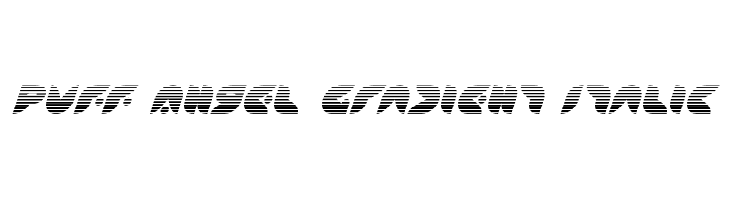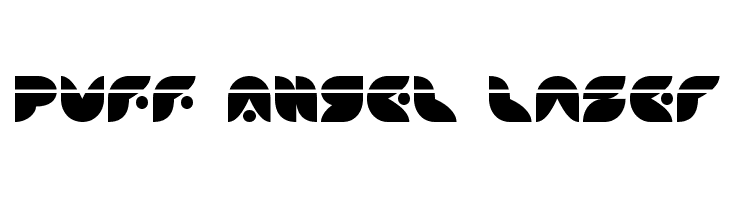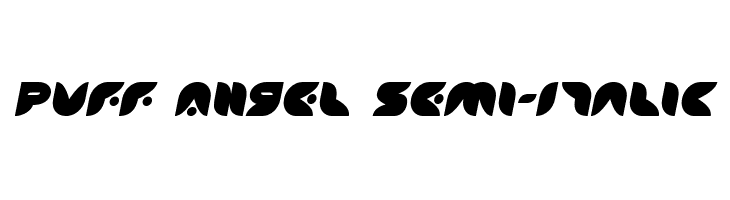
A bold, condensed, and italicized font with a playful and dynamic style.
A bold, geometric, and playful font with a modern decorative style.
A bold, playful, and expanded italic font with a modern and whimsical style.
A bold, modern font with a gradient line effect and futuristic style.
A bold, italicized font with a gradient effect created by horizontal lines.
A bold, geometric font with a halftone effect and modern, futuristic style.
A bold, italicized font with a halftone effect and dynamic, modern style.
A bold, playful font with rounded, stylized characters and a modern, dynamic feel.
A bold, geometric font with a futuristic and modern design.
A bold, futuristic font with a laser-cut, geometric design.